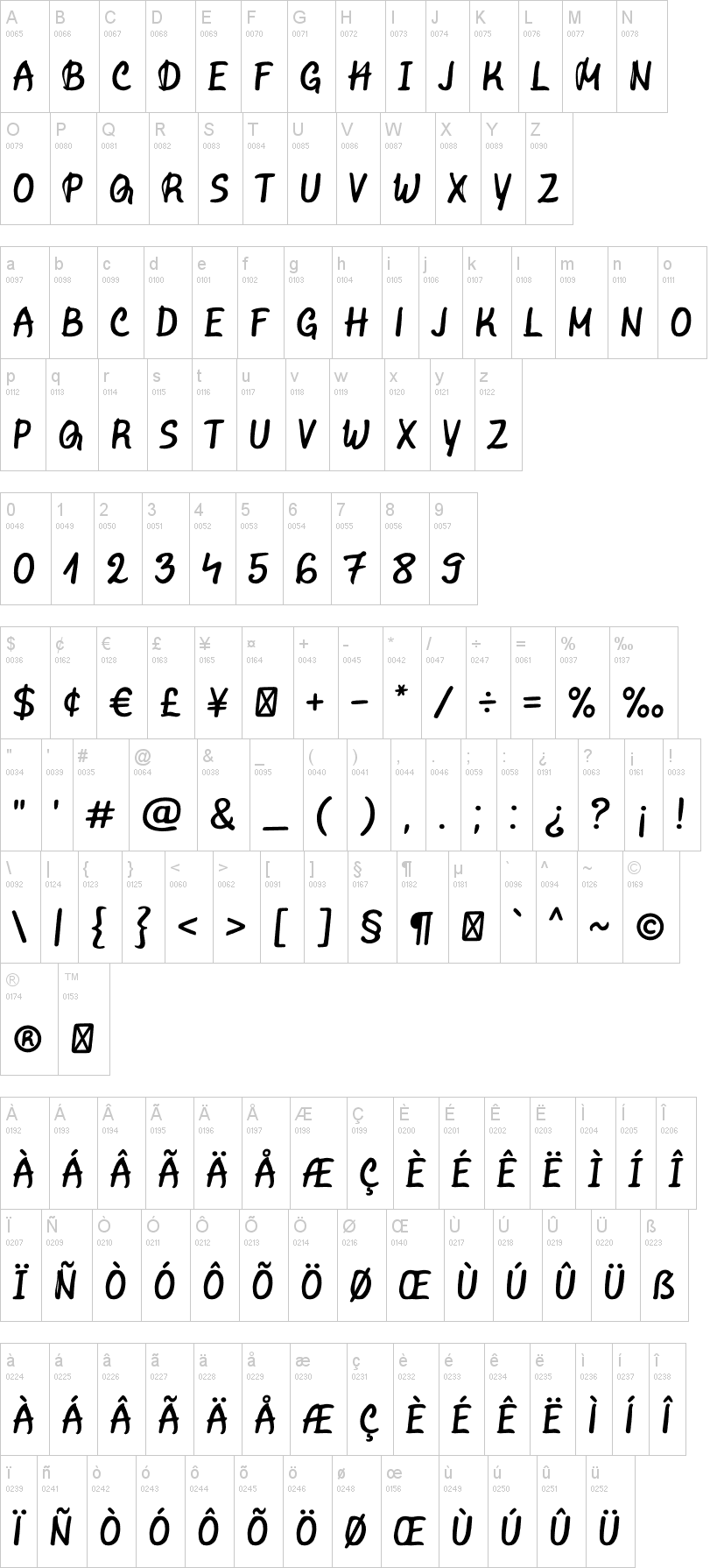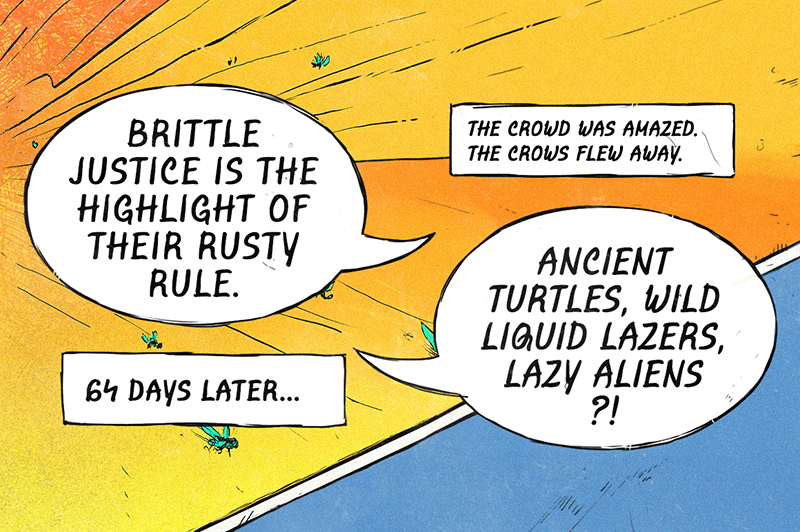
MarvelousRex-Italic.otfNote of the authorMarvelous Rex is a hand-drawn typeface inspired by comic book lettering, and can be used in a variety of ways.